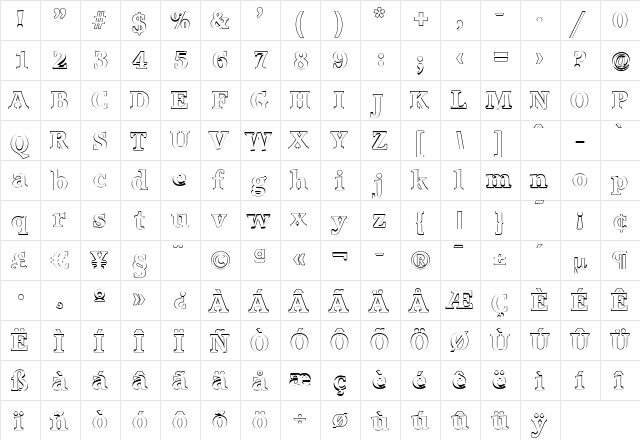
MichaelBeckerOutline-ExtraBold Regular Font Preview
MichaelBeckerOutline-ExtraBold Regular
Design Context for MichaelBeckerOutline-ExtraBold Typeface
MichaelBeckerOutline-ExtraBold is built around its visual character rather than neutral utility — its distinctive forms are designed to make an impression at display sizes. The heavy weight commands attention and anchors typographic hierarchies.
Font Pairing: Pair with a clean neutral sans-serif for body copy to let MichaelBeckerOutline-ExtraBold's character lead without overwhelming the composition.
Pro Tip: Use MichaelBeckerOutline-ExtraBold exclusively at display sizes — it was designed to be seen, not read at length. Let a neutral companion handle body copy.